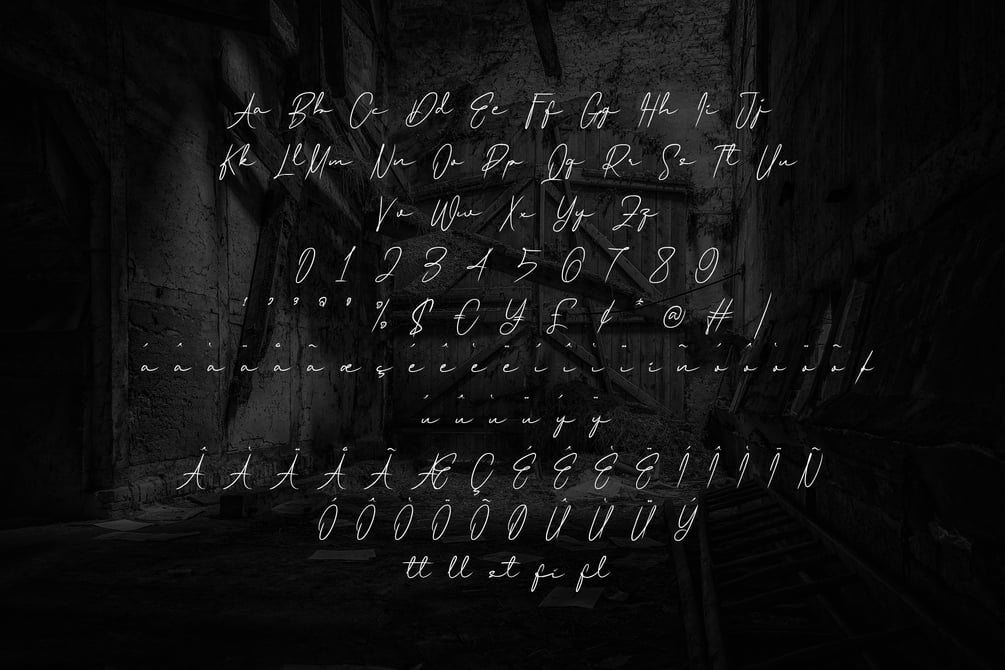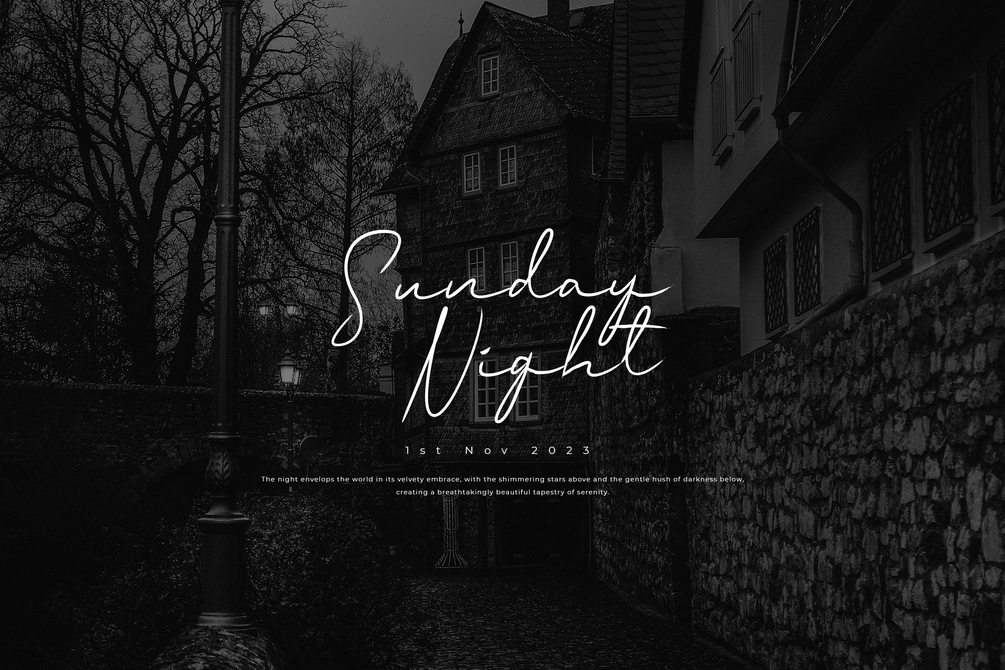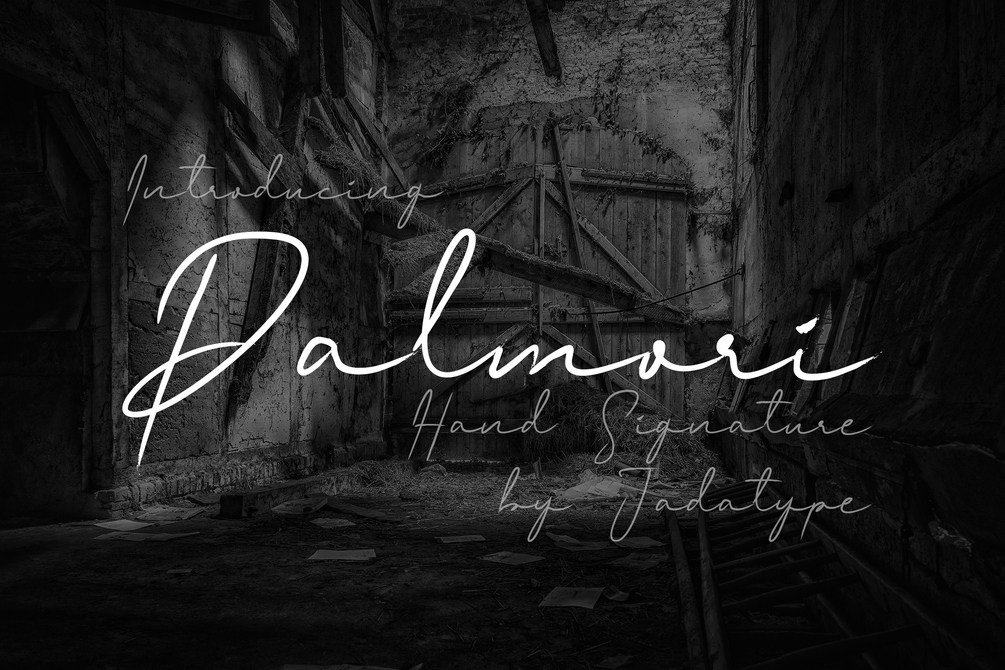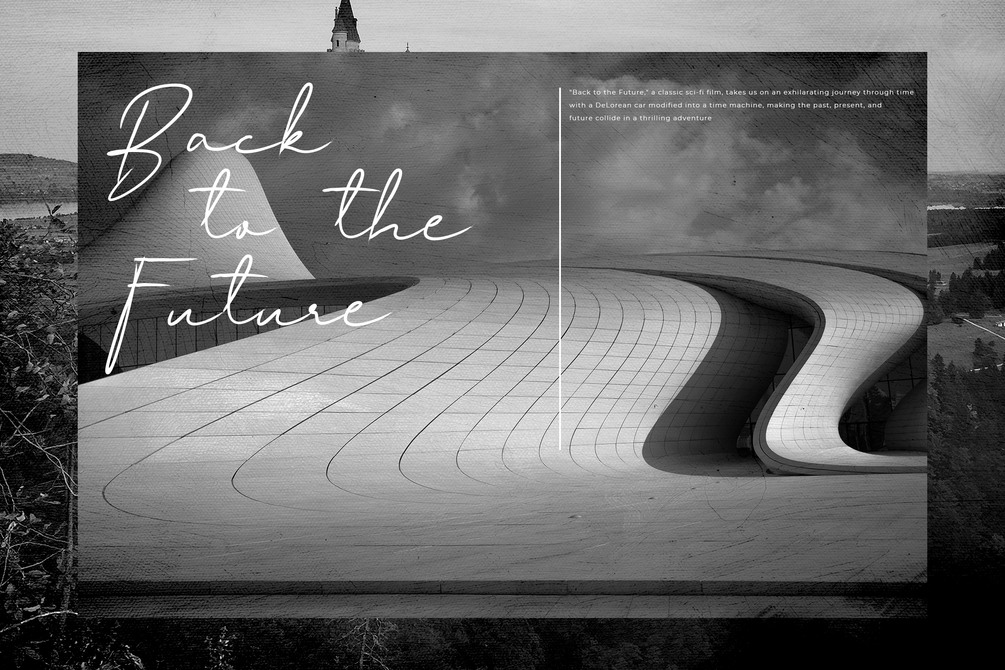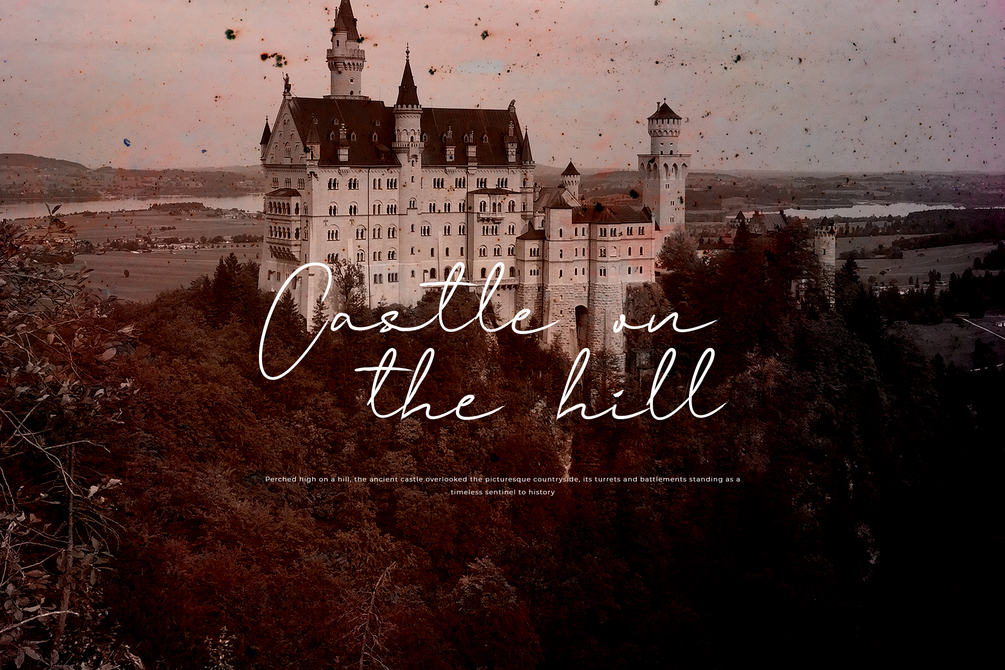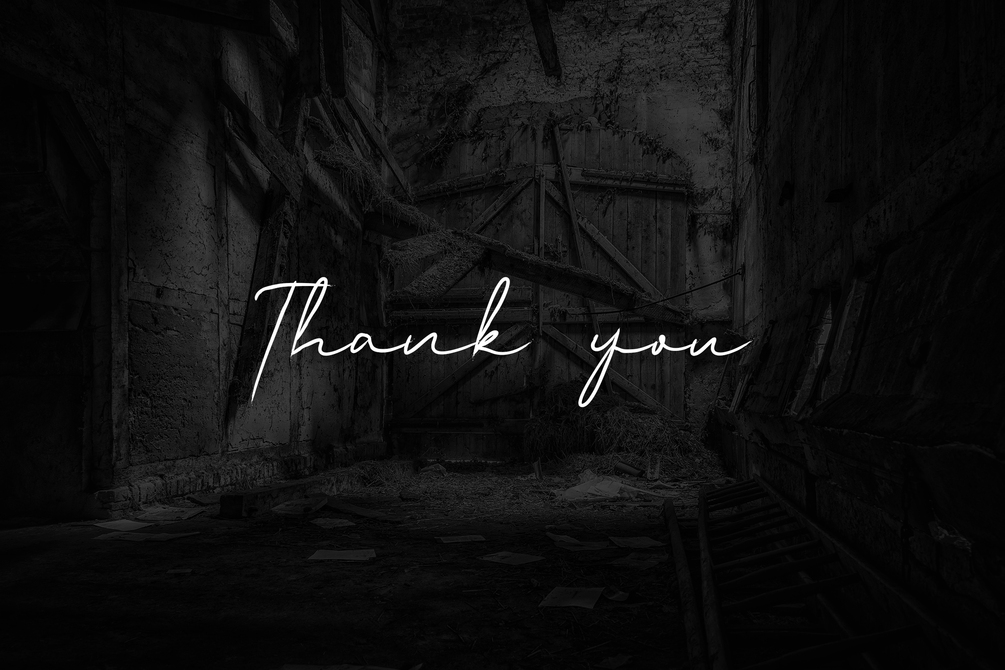
Palmori Font
Palmori is a script font that comes with an Old Signature Style. suitable for tshirt, branding, social media, and so on. contains standard English letters, numbers, punctuation, and several accents that support multilingualism.